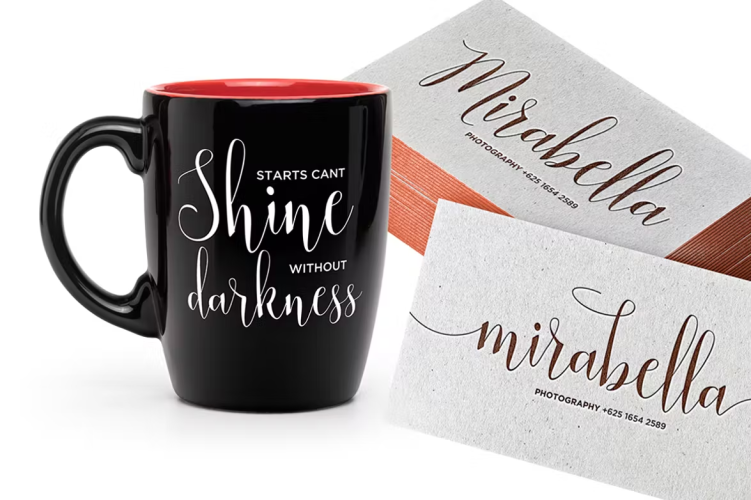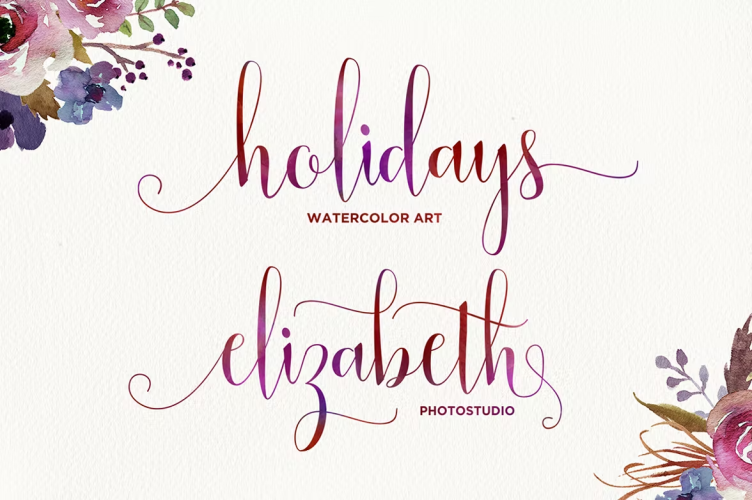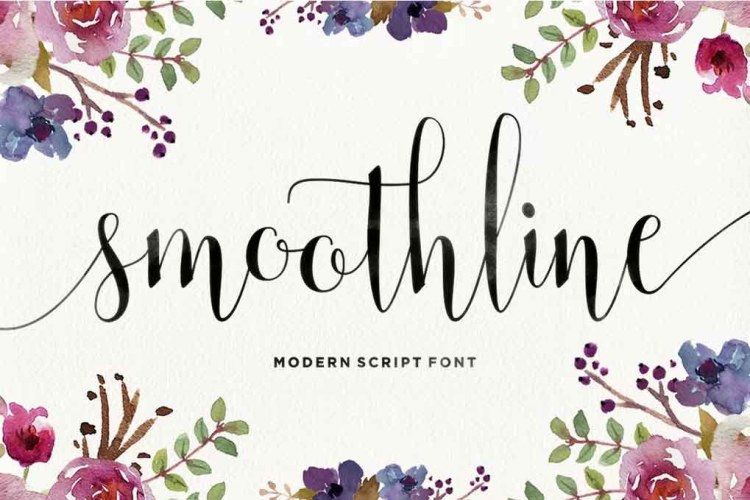
Smoothline Script Font
Smoothline Script is a modern calligraphy font, with characters dance along the baseline and elegant touch. With almost 421 glyphs. Opentype features with stylistic alternates, ligatures and multiple language support. Can be used for various purposes.such as logos, wedding invitation, heading, t-shirt, letterhead, signage, lable, news, posters, badges etc.
Where Smoothline Script Font works best
A short phrase in Smoothline Script Font carries warmth that a typeset sans cannot fake; keep the rest of the card plain.
Chalkboard-style headings in Smoothline Script Font make a menu feel hand-made. Keep the dish descriptions in a simple face so prices stay readable.
One line of Smoothline Script Font over a photo is enough; the script carries the tone and the caption does the work.
What kind of work does Smoothline Script Font suit?
It sits in the Script And Handwritten group and reads as branding, calligraphy, elegant, modern. That makes it a candidate wherever those qualities help: headings, packaging, social graphics and brand work. Set it at the size you plan to use before deciding.